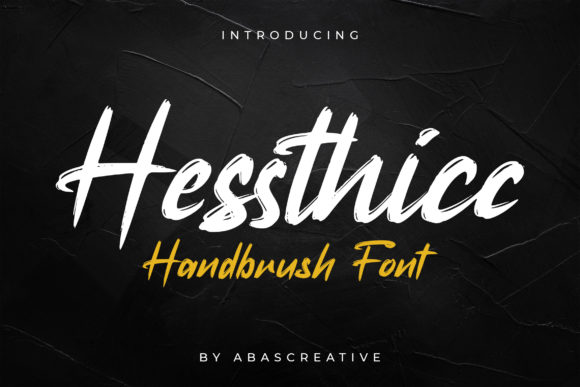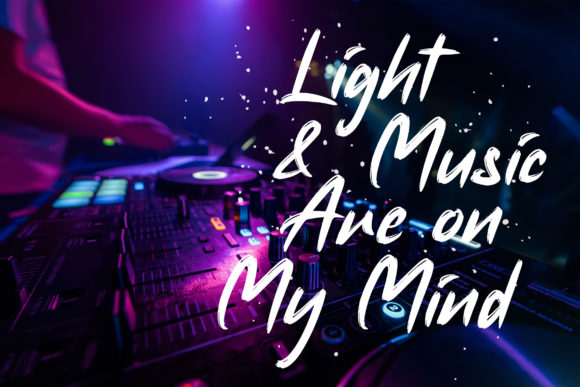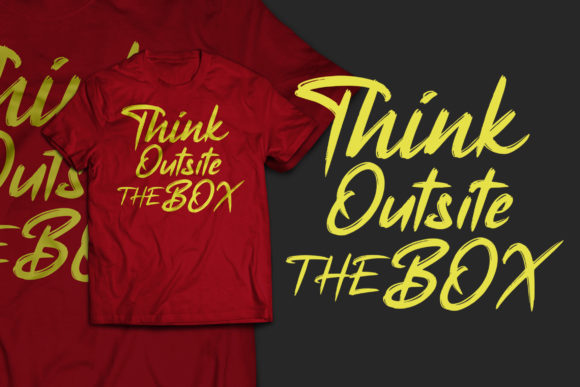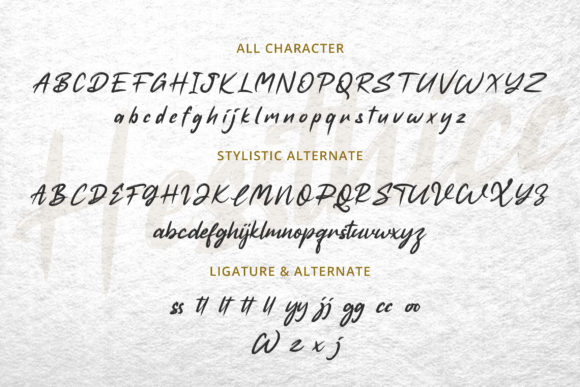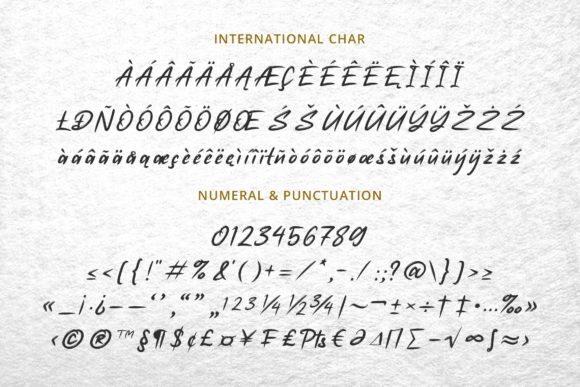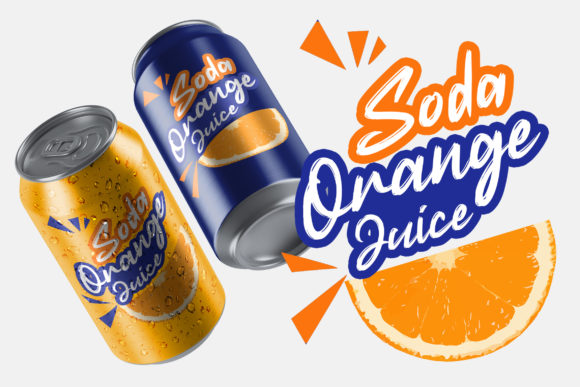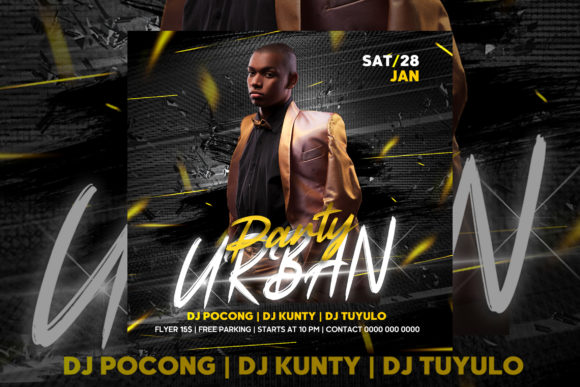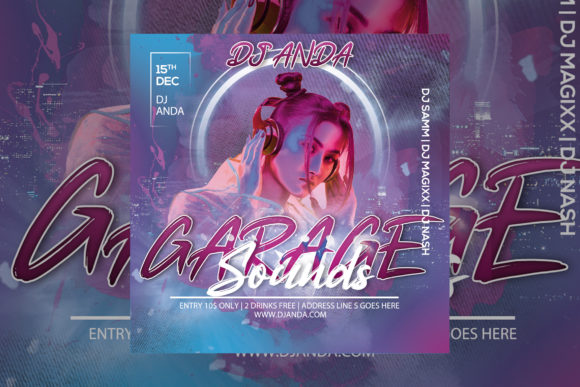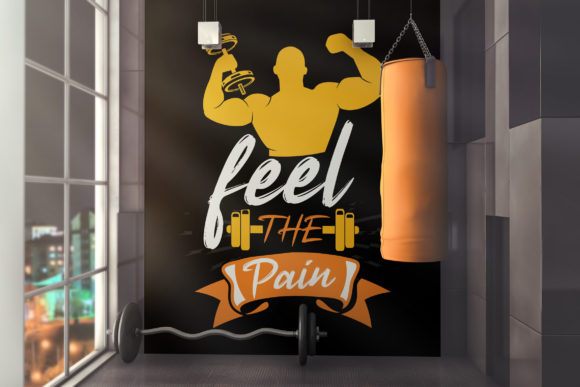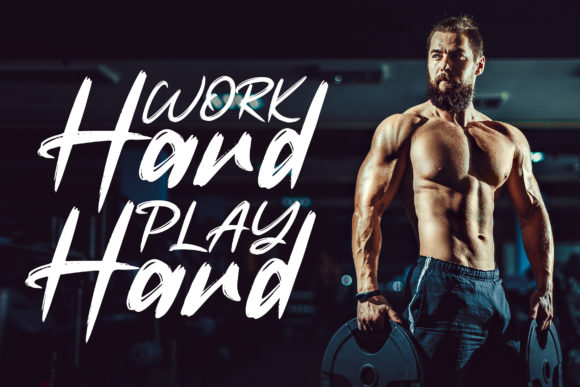
Hessthicc Font
About Hessthicc Font
Hessthic results out of a stunning pairing of a brush pen and pencil that makes it look incredibly endearing and authentic. Use this gorgeous and unique handwritten font to bring any DIY project to life!